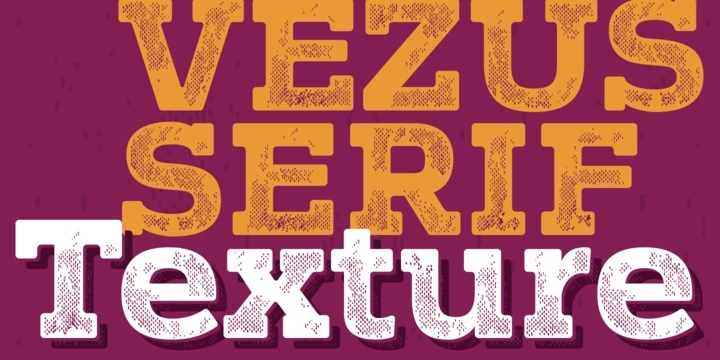
Vezus Serif Texture Font
Vezus Serif Texture Font is perfect for luxury fashion branding, high-end restaurant menus, premium wine labels, boutique hotel signage, artisan craft marketing, heritage brand identity, sophisticated magazine layouts, and exclusive lifestyle campaigns.
What makes Vezus Serif Texture Font exciting is its tactile sophistication that combines classical serif elegance with rich textural depth and premium craftsmanship. The font features refined letterforms with subtle texture variations and aristocratic proportions that evoke handmade paper, artisan printing, and the luxurious feel of premium materials. Its distinctive textured styling and upscale appeal communicate exclusivity, craftsmanship, and discerning taste, making every message feel embossed with quality and touched by artisanal excellence.
The Vezus Serif Texture Font family includes regular weight with uppercase and lowercase letters, numerals, punctuation marks, and comprehensive special characters. Premium versions often feature multiple texture variants and luxury alternates that enhance the sophisticated, tactile aesthetic perfect for high-end branding applications.
This exquisite textured typeface brings instant luxury and artisanal credibility to any premium project. Vezus Serif Texture Font Free Download delivers exceptional results for luxury brands and high-end businesses seeking to communicate exclusivity, craftsmanship, and sophisticated quality to affluent audiences and discerning consumers.
The luxurious character of Vezus Serif Texture Font makes it particularly valuable for luxury fashion houses, premium hospitality brands, and artisan product manufacturers. Its excellent readability ensures product descriptions and luxury messaging remain clear while maintaining the distinctive textured aesthetic that appeals to customers seeking exclusive, high-quality experiences and premium craftsmanship.
Luxury brand marketers appreciate how Vezus Serif Texture Font effortlessly conveys premium quality and artisanal sophistication. The font's textured proportions and refined details create prestigious brand materials that establish connections with audiences who value exclusivity, traditional craftsmanship, and the tactile luxury of premium products.
The versatile luxury of this typeface extends to fine jewelry marketing, premium spirits branding, and exclusive club communications where textured sophistication enhances perceived value. Vezus Serif Texture Font Free Download provides creative professionals with an essential tool for developing memorable, luxury-focused designs that resonate with audiences who embrace premium quality, artisanal craftsmanship, and the sophisticated texture of exclusive luxury experiences in today's discerning marketplace.